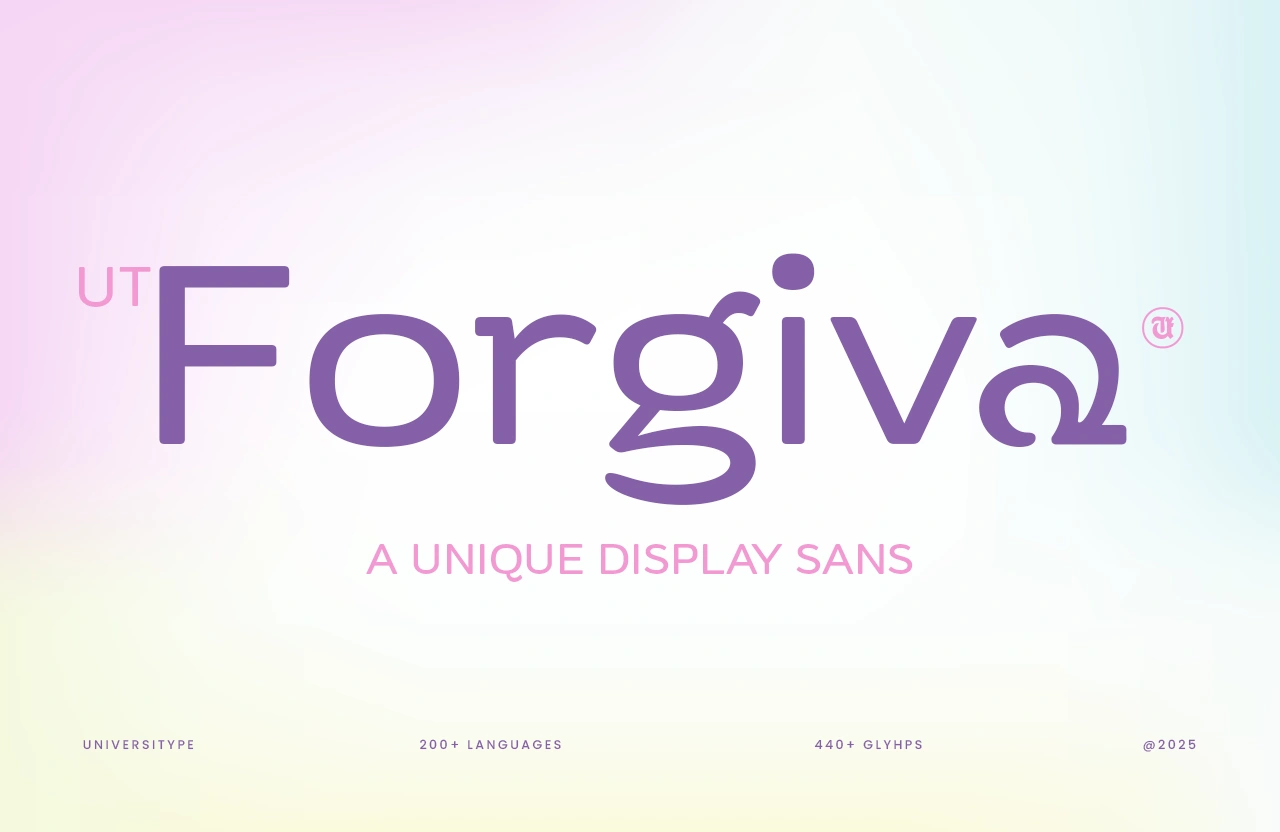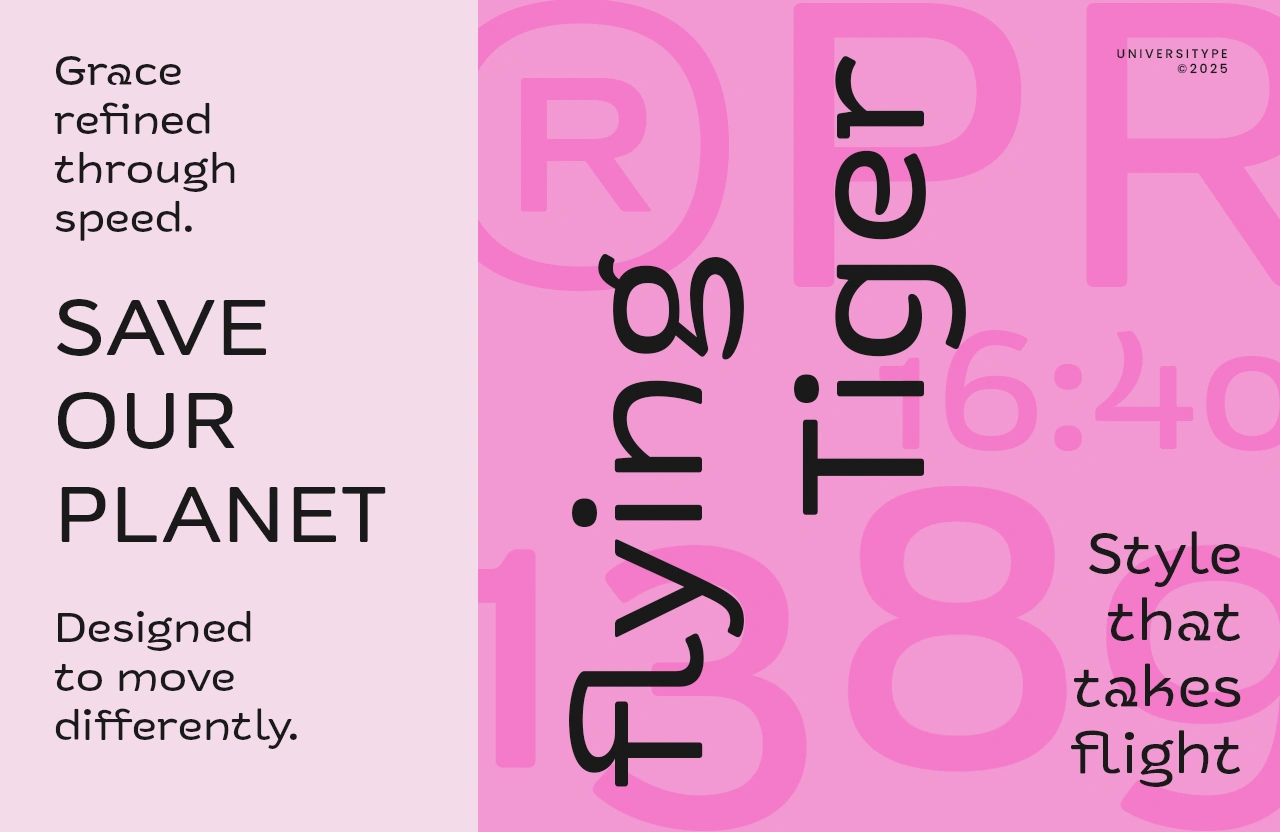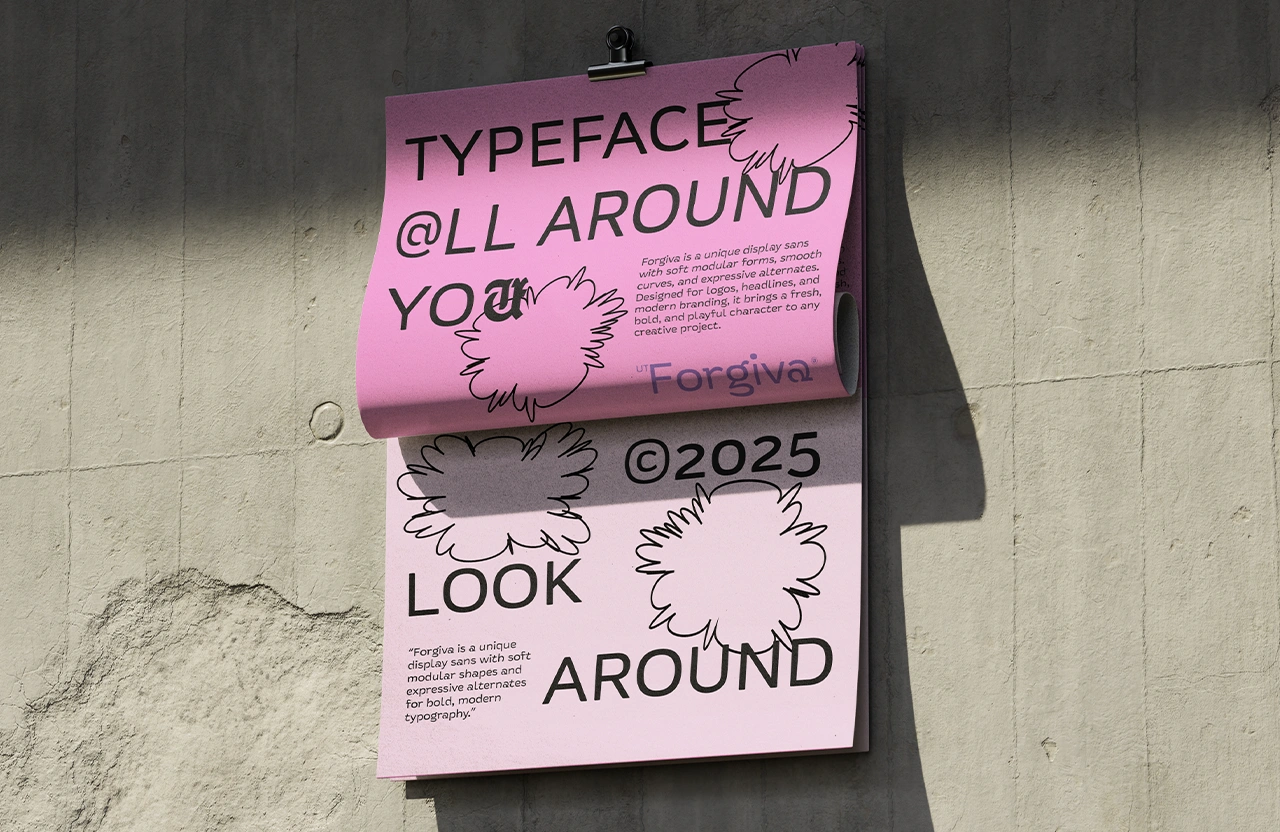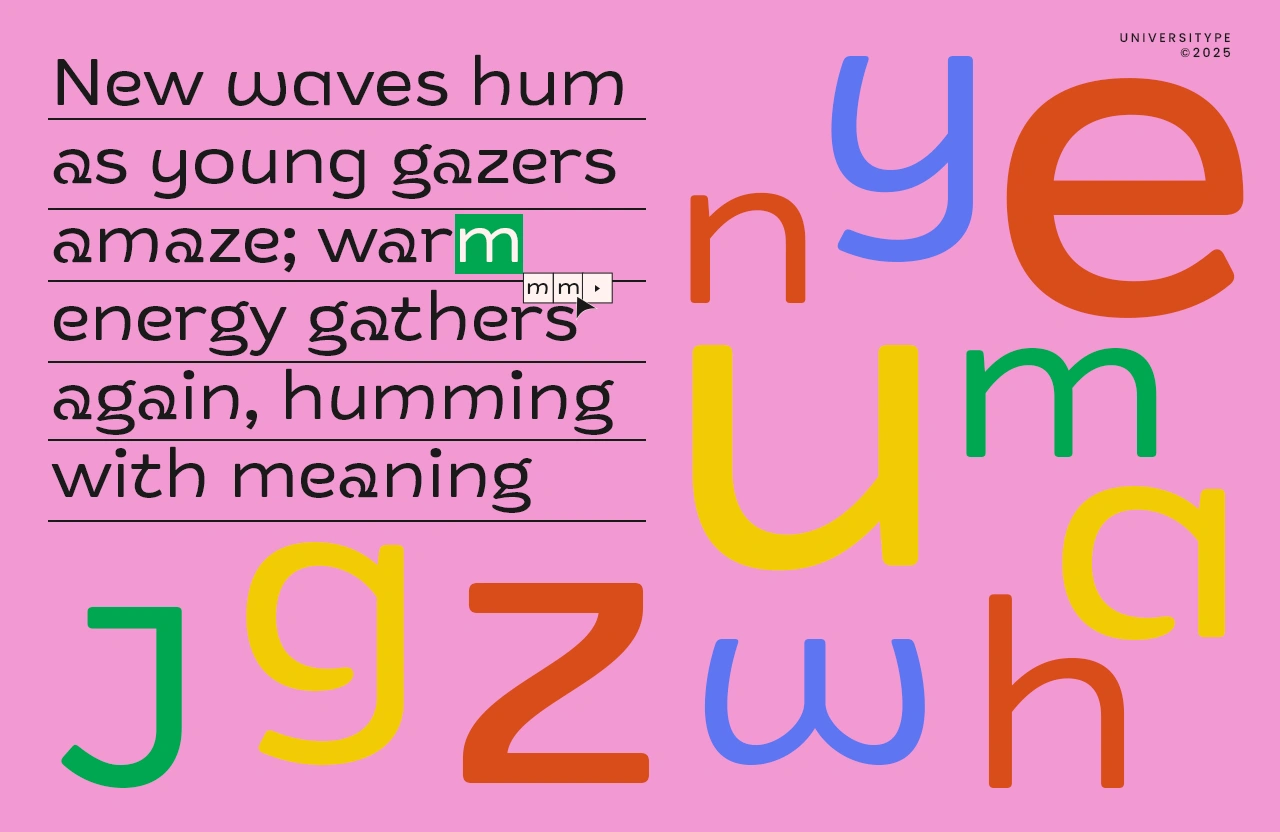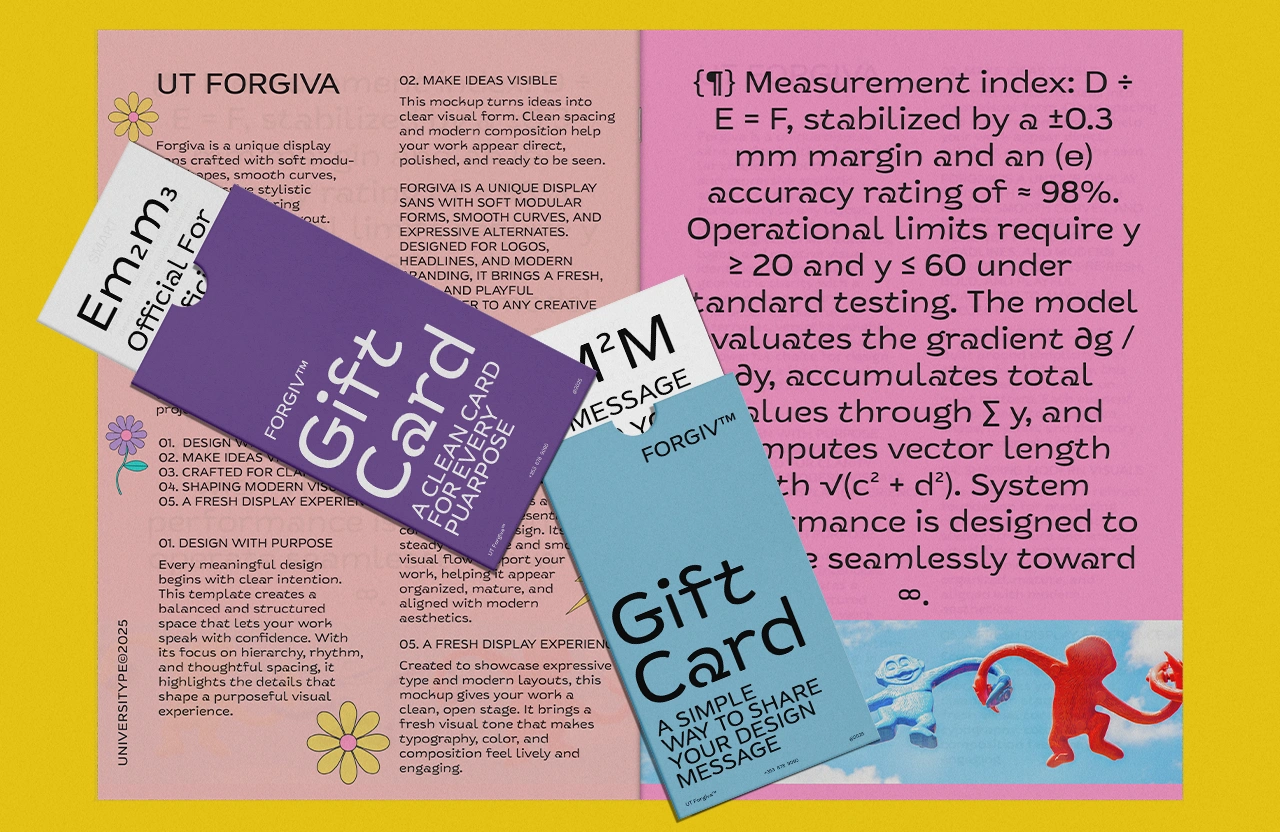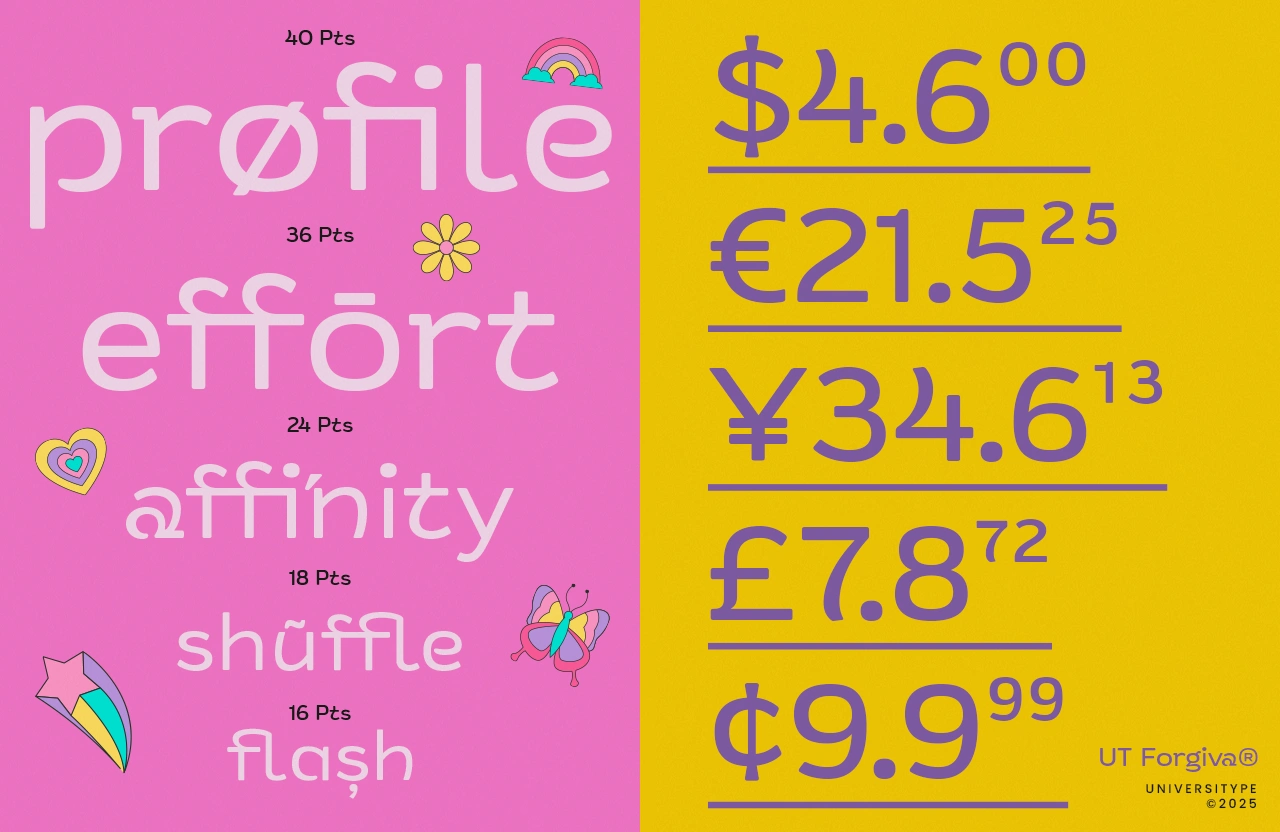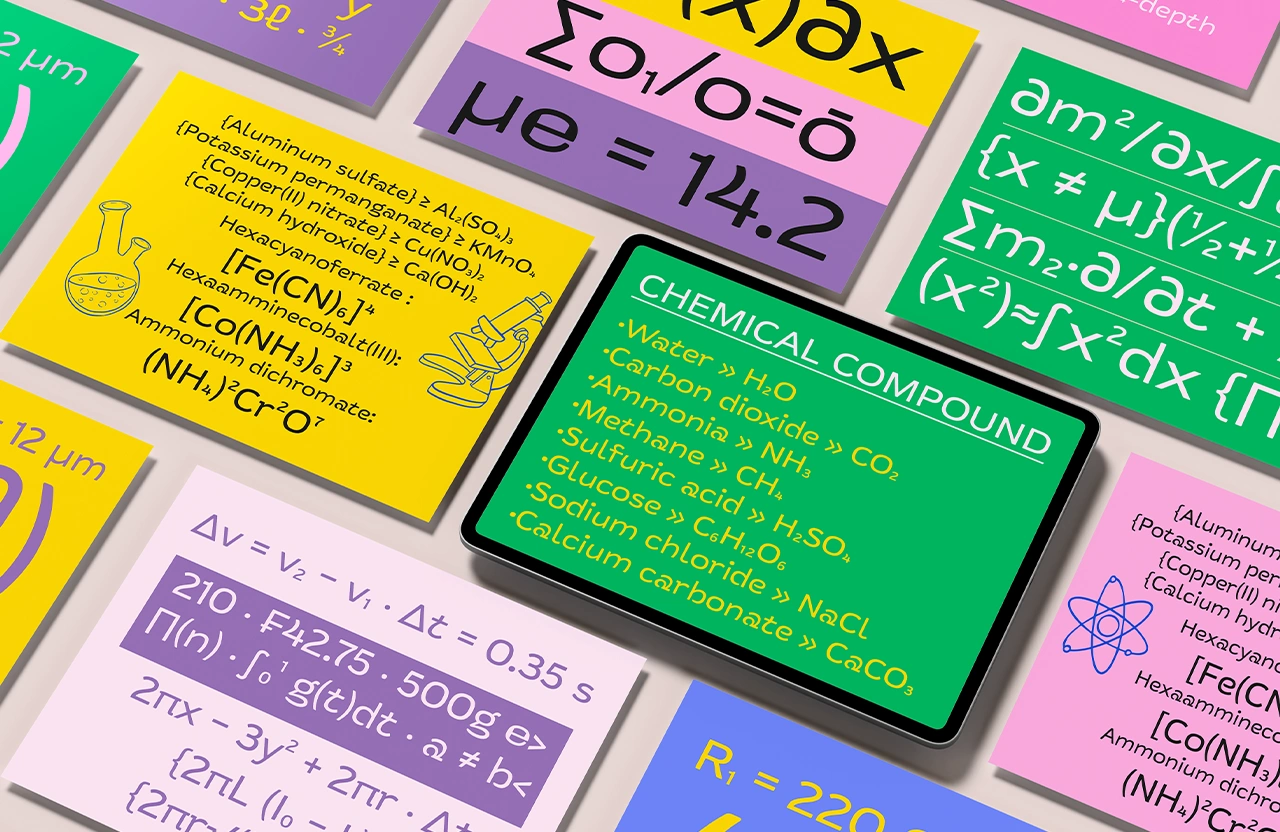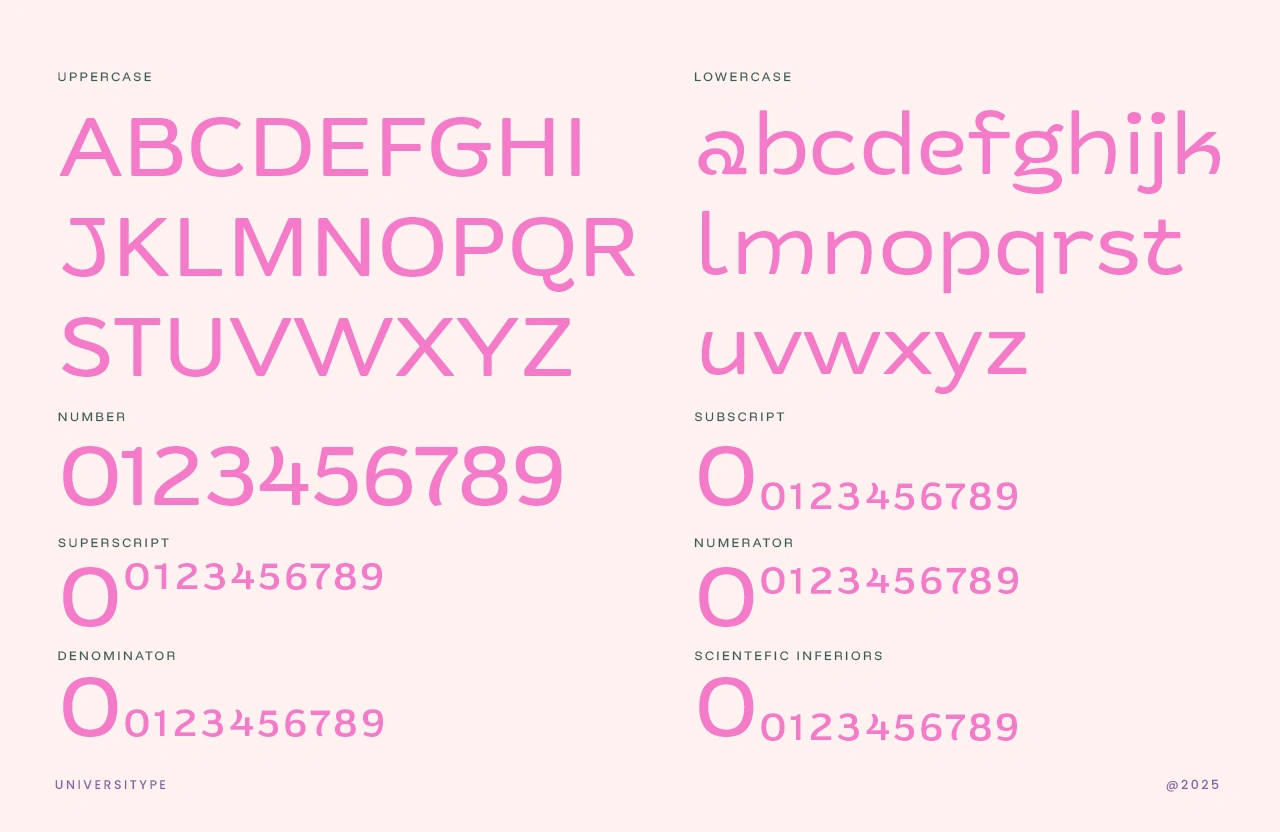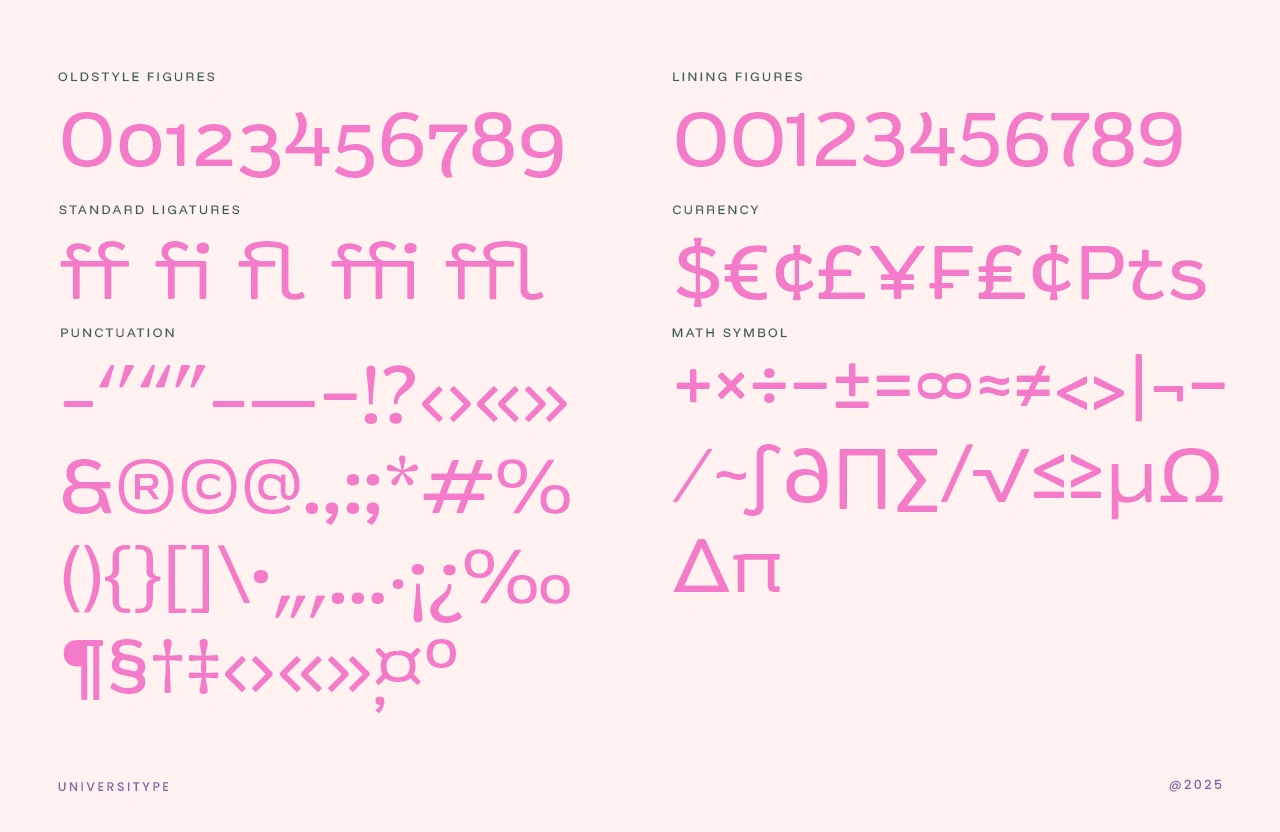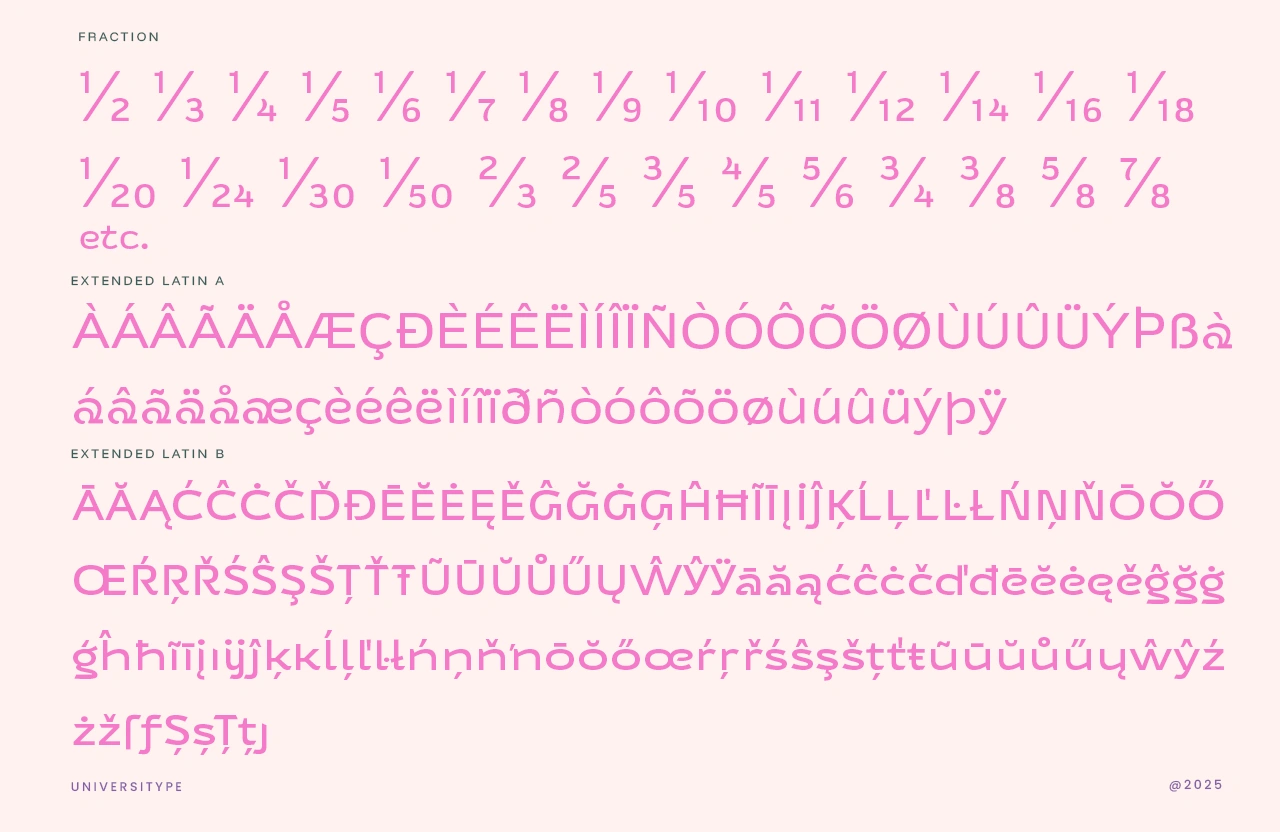
UT Forgiva
Description
UT Forgiva is a soft, modern display sans built with smooth curves, rounded shapes, and a friendly personality. Its gentle forms bring a fresh, approachable tone to branding, packaging, digital interfaces, and creative projects that need clarity with a touch of playfulness.
UT Forgiva – A Unique Display Sans
UT Forgiva brings a mellow, modern charm to your layouts. It mixes smooth curves, rounded terminals, and a steady rhythm that feels calm yet expressive. Every letter sits with a gentle confidence, giving your text that “pleasant to read, easy to love” feeling. Whether you’re shaping a friendly brand, packaging with personality, or clean digital interfaces, Forgiva slips right in and adds a light, optimistic tone.
Forgiva fits designers who want kindness baked into their typography.
Anyone who needs a sans that feels human, warm, and visually smooth will vibe with this one.
Key Features
• Soft modular curves that create a friendly, approachable feel
• Rounded terminals that add warmth and personality
• Steady vertical rhythm for clean, consistent layouts
• Unique characters like a, g, r, v that give branding a memorable voice
• Support for 200+ languages
• 400+ glyphs crafted for versatility
• Well-balanced uppercase and lowercase for display and short text
• Complete numeral set including super/subscripts, denominators, scientific inferiors
Inspiration Behind the Design
Forgiva started with the idea of soft communication — letters that speak gently but with clarity. The shapes echo the feeling of handwritten kindness blended with modern geometry. Smooth corners, calming proportions, and expressive alternates all came from wanting a sans that feels friendly without turning into a cartoon. It’s designed for creators who love modern design but still want a little heart in their typography.
Usage Suggestions
You’ll get the best results using Forgiva for:
• branding and identity work
• clean product packaging
• lifestyle or wellness posters
• minimal stationery sets
• playful yet modern editorial spreads
• app interfaces and onboarding screens
• café menus, gift cards, shop signage
It shines in large sizes, headlines, and logotypes — anywhere you want character without chaos.
• OpenType Features:
• stylistic alternates
• superscript & subscript
• numerator & denominator
• scientific inferiors
• multilingual support
• standard ligatures